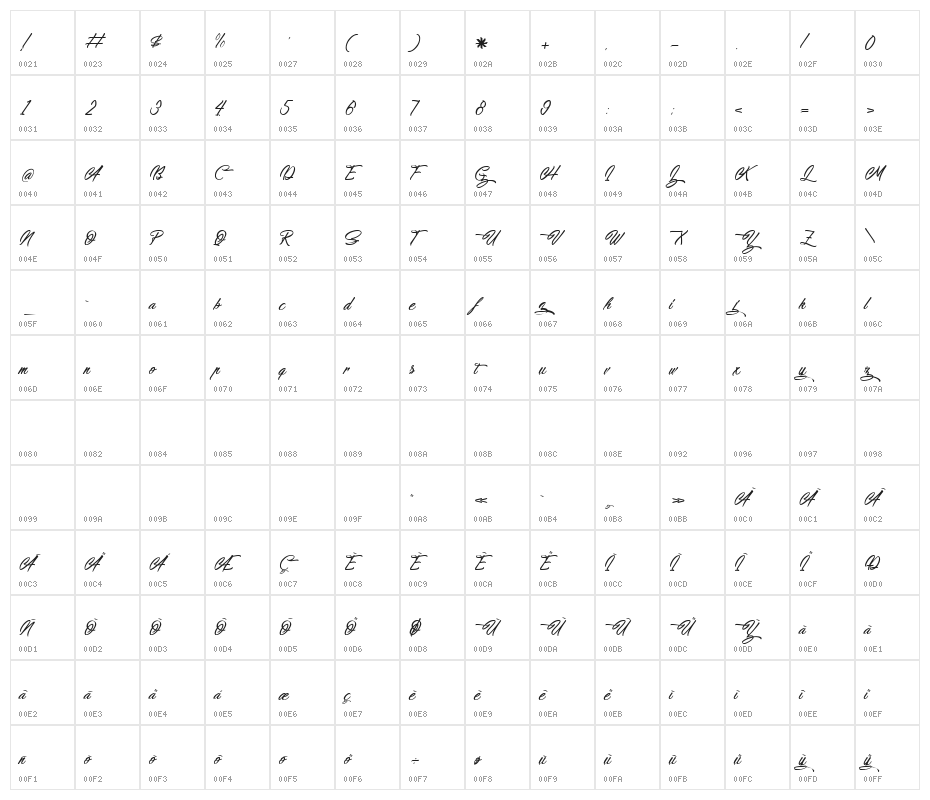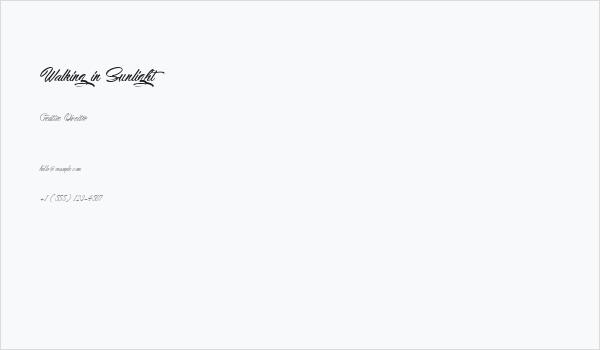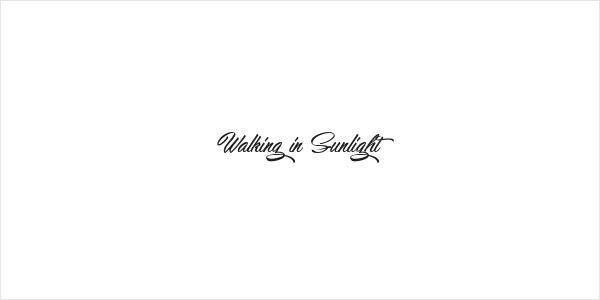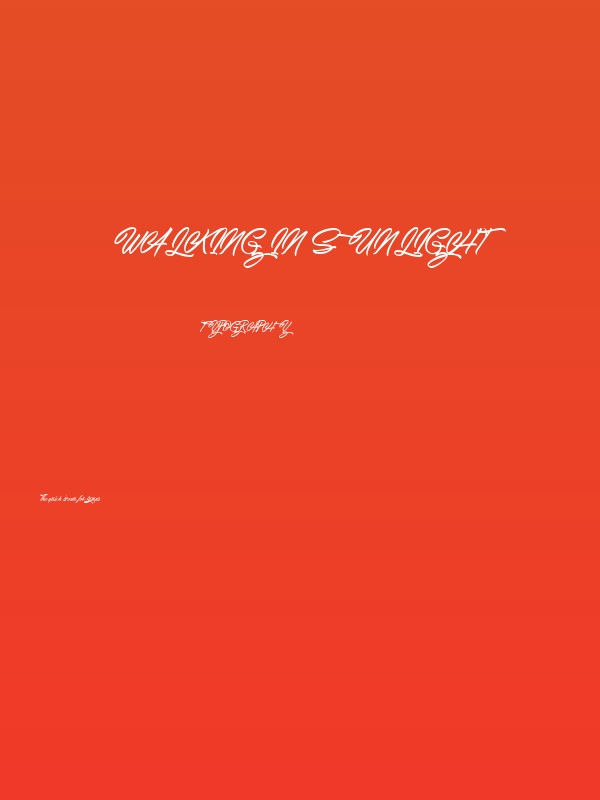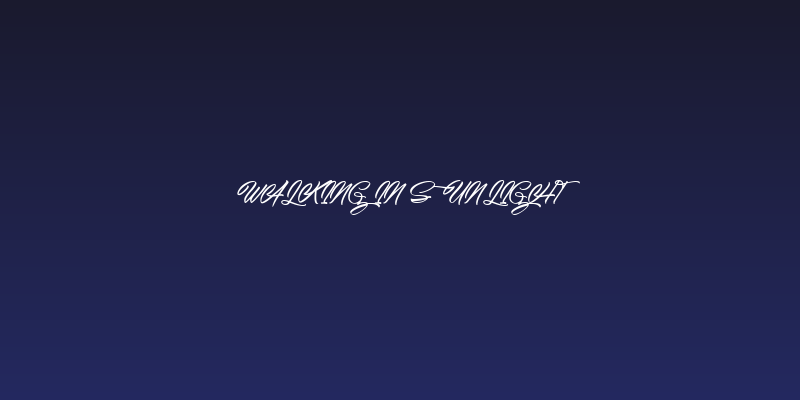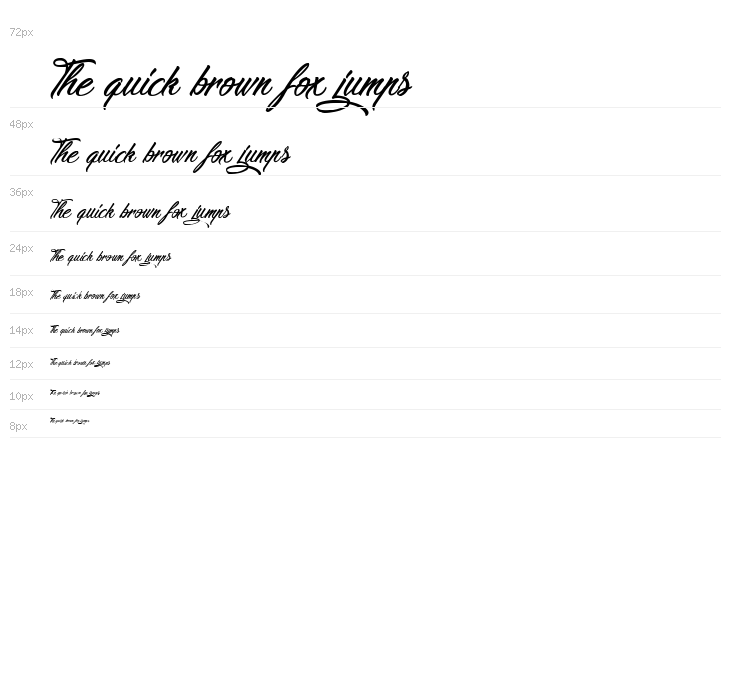
Walking in Sunlight Font
Walking in Sunlight Description
This elegant script font features flowing, interconnected letters with a classic calligraphic style. The uppercase characters are ornate, with intricate swashes and flourishes that add a touch of sophistication. The lowercase letters maintain a consistent flow, enhancing readability while preserving the decorative nature of the script. Numbers and special characters are designed to match the overall aesthetic, ensuring a cohesive look across all text elements. The font's graceful curves and loops make it ideal for formal invitations, branding, and any project that requires a touch of elegance.
| Proposed Projects | Ideal for wedding invitations, luxury branding, greeting cards, and elegant signage. |